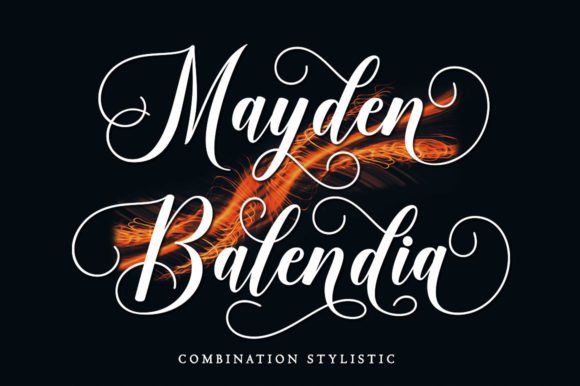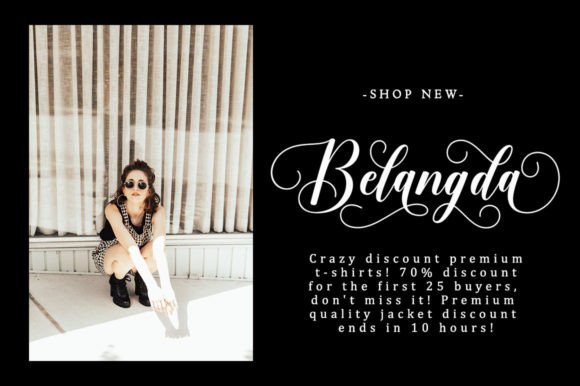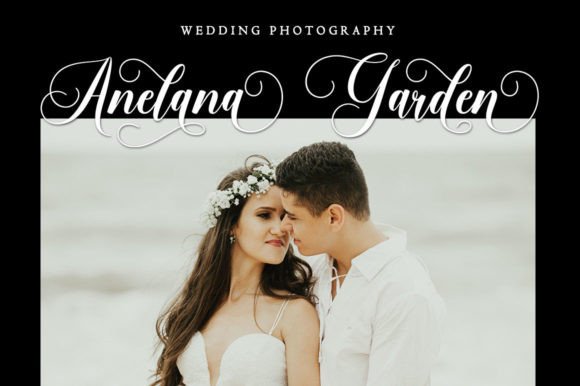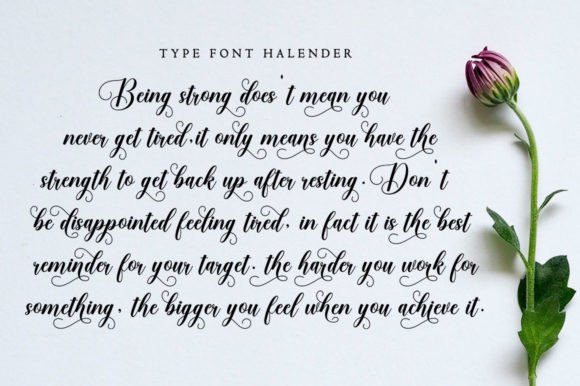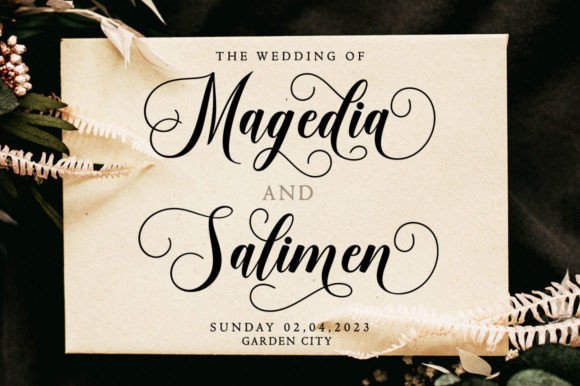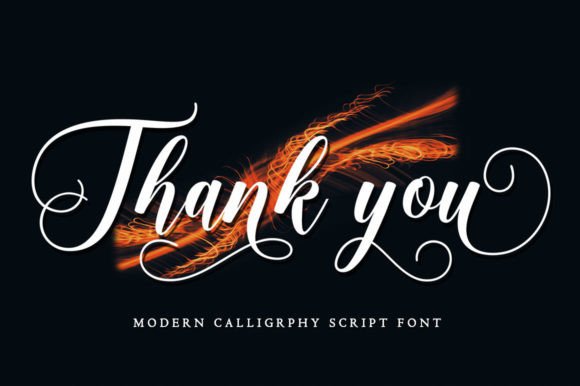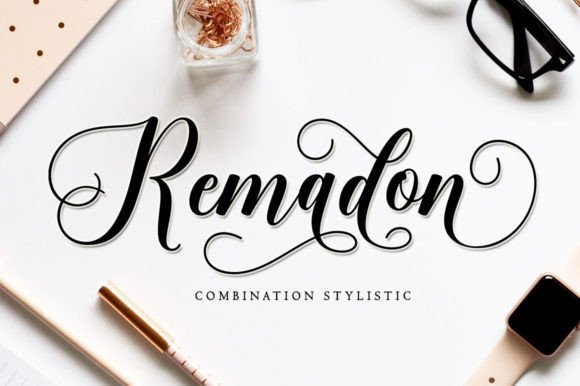
About Halender Font
The Halender Font Download is an elegant script typeface designed with timeless sophistication and modern charm. Inspired by classic copperplate calligraphy, Halender combines traditional decorative strokes with a fresh, contemporary feel. Its graceful curves and detailed craftsmanship make it the perfect font for formal and luxury designs.
With a clean yet glamorous style, Halender adapts seamlessly to both digital and print projects. Its letter connections flow naturally, creating a polished handwritten look that is pleasing to the eye, feminine, and easy to read. Whether you’re designing wedding stationery, crafting a logo, or preparing product packaging, Halender offers a versatile solution that enhances your work with elegance and class.
Features of Halender Font
When you choose the Halender Font Download, you gain access to a typeface with:
Elegant handwritten script style inspired by copperplate calligraphy
High-detail design for professional quality results
Luxurious letter connections for a clean and glamorous finish
Timeless classic aesthetic with a modern creative touch
Versatility for branding, invitations, and editorial designs
These features make Halender a standout addition to any font library.
Best Uses for Halender Font
The Halender Font Download works beautifully in both formal and creative projects. Popular applications include:
Wedding invitations and greeting cards – Add timeless romance and elegance
Logos and branding – Perfect for fashion, lifestyle, and luxury businesses
Restaurant menus and labels – Enhance fine dining or boutique products
Book covers and magazines – Professional typography for editorial layouts
Product packaging – Stylish labels for cosmetics, jewelry, or high-end goods
Stationery and advertising – A refined choice for letters, flyers, and posters
Halender’s refined strokes ensure it always looks polished, no matter the medium.
Why Choose Halender Font
Unlike generic script typefaces, the Halender Font Download balances classic artistry with modern usability. Its detailed design captures the glamour of copperplate calligraphy while remaining simple and easy to read. This makes it ideal for designers who want a professional, elegant, and versatile script font for both personal and commercial use.
Designers love Halender because it conveys sophistication without being overly complex. Its smooth readability ensures it works well in large headlines or small details, making it a flexible tool for a wide range of projects.
The Halender Font Download is a refined script font that combines the charm of classic copperplate with modern elegance. With its luxurious curves, glamorous letter connections, and versatile applications, this typeface is perfect for invitations, logos, branding, packaging, and more.